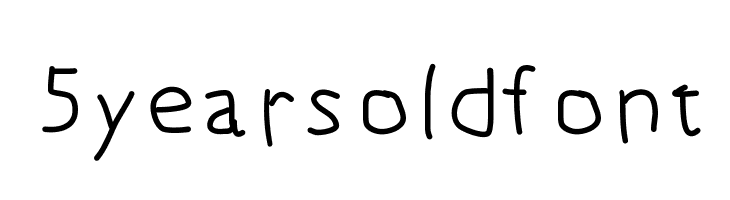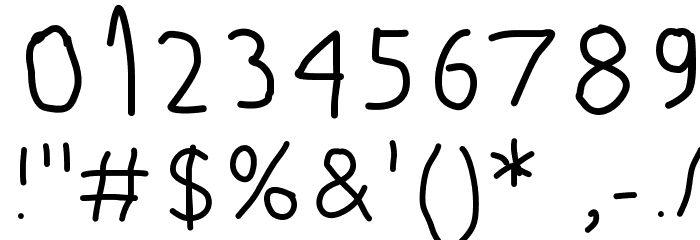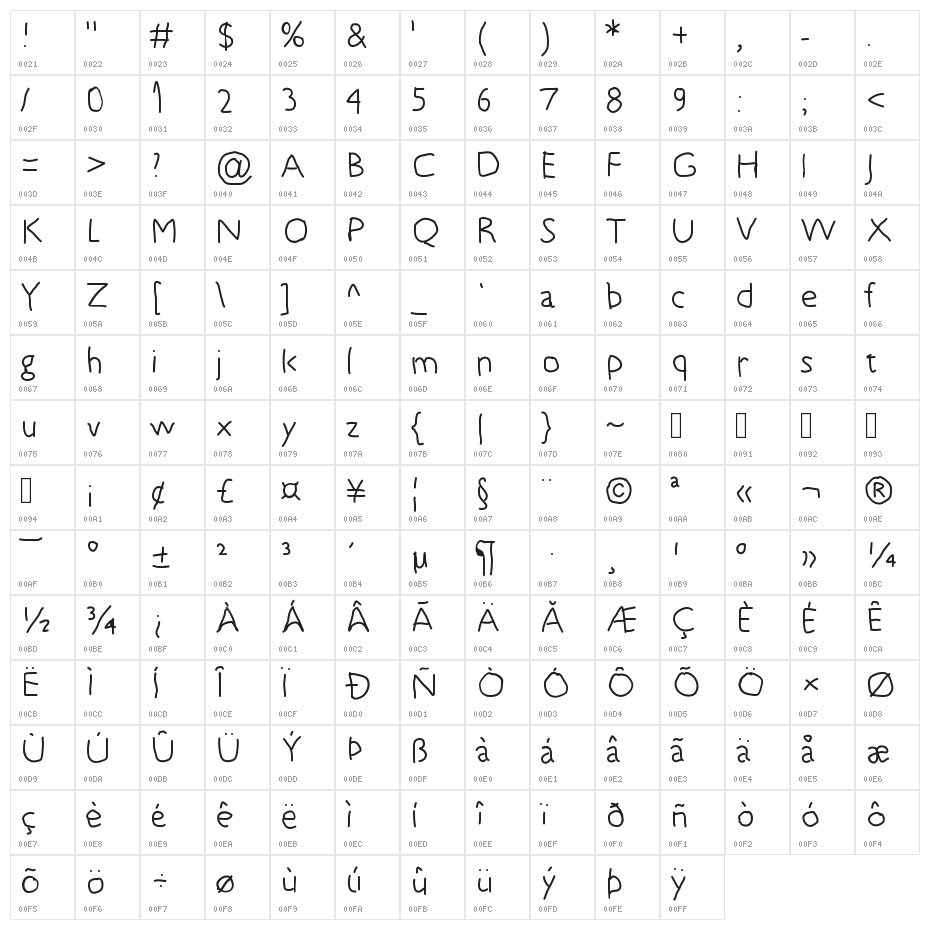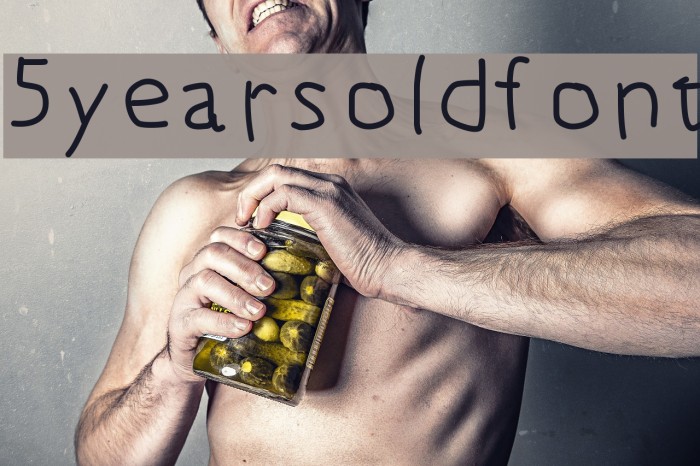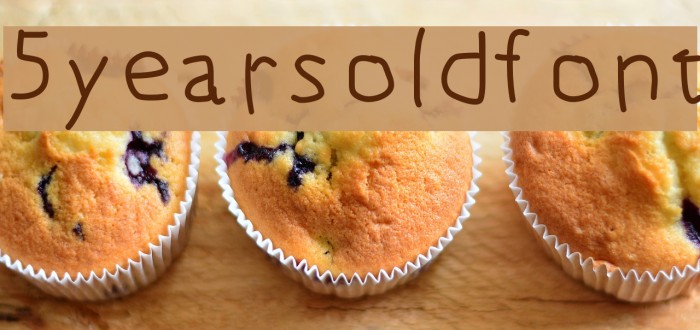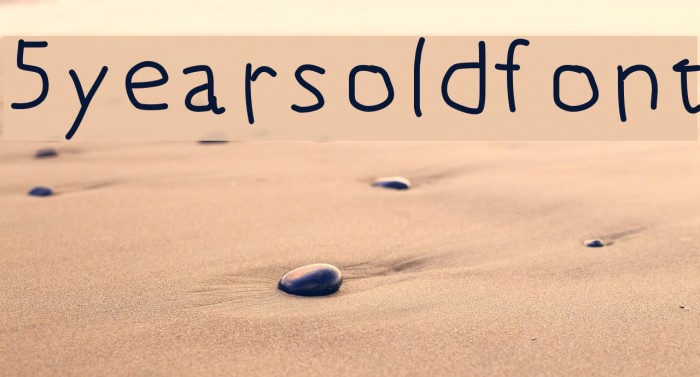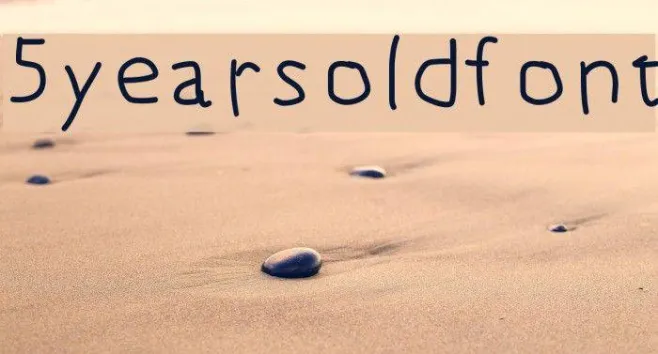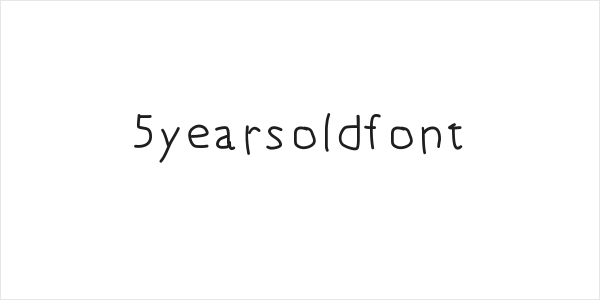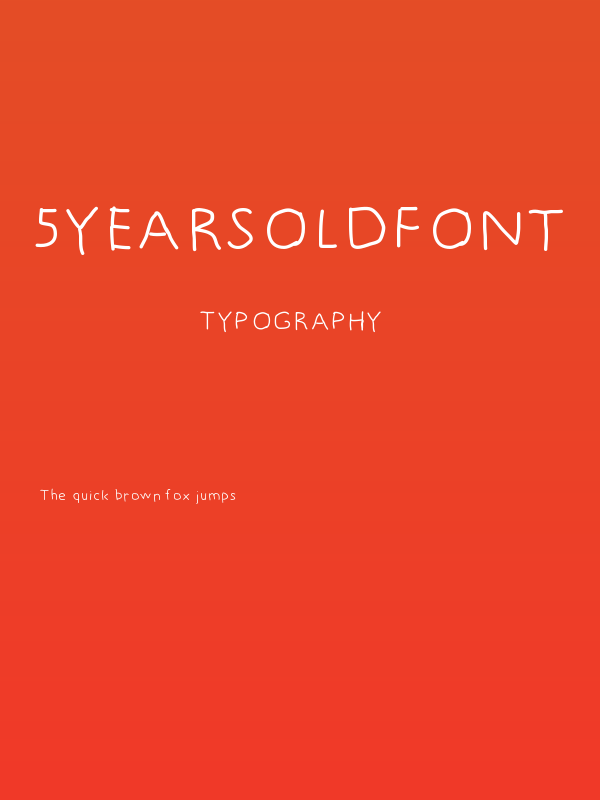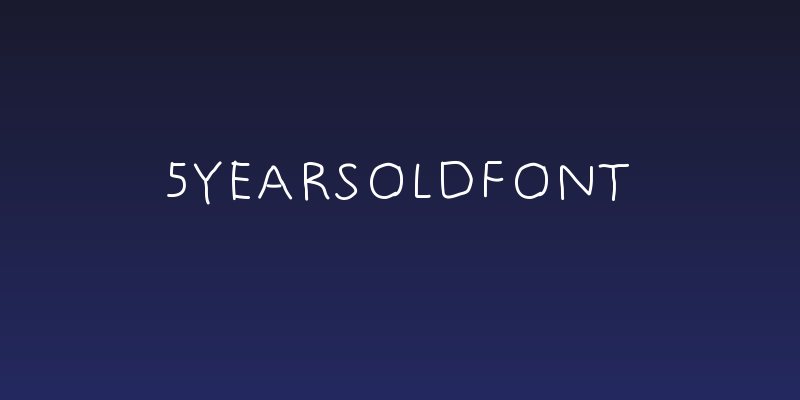
This playful and whimsical font features a hand-drawn, childlike quality that evokes a sense of innocence and creativity. The characters are unevenly shaped, with varying stroke thicknesses that add to its casual and informal appearance. The uppercase and lowercase letters maintain a consistent style, with rounded edges and a slightly irregular baseline, enhancing its charm. Numbers and special characters follow the same playful design, making the font suitable for projects that require a fun and approachable aesthetic.
| Proposed Projects | Ideal for children's books, educational materials, playful branding, and creative invitations. |